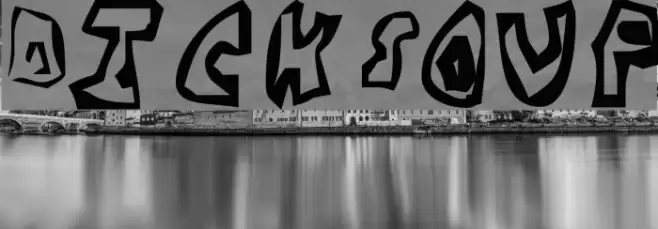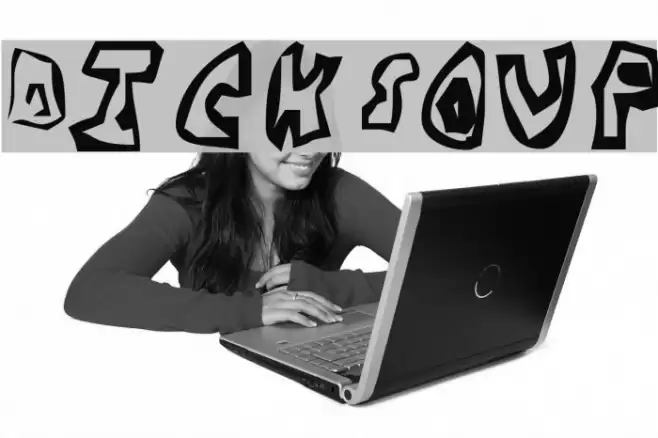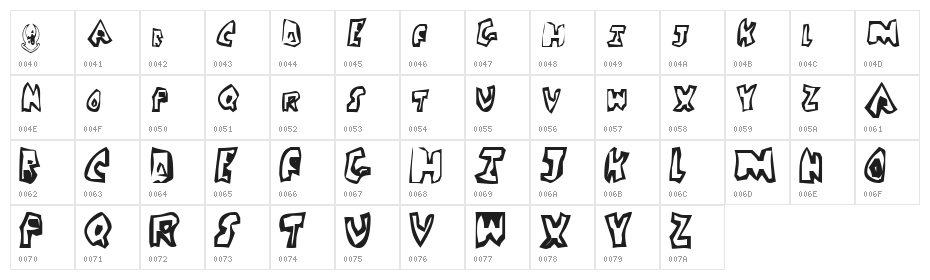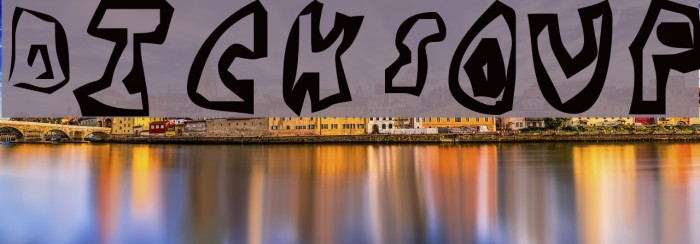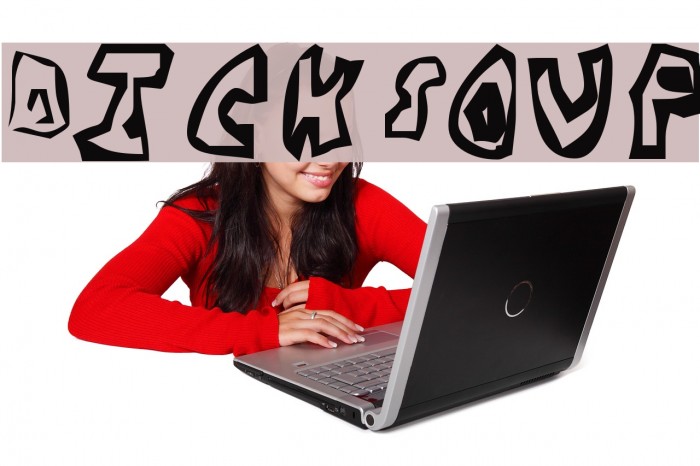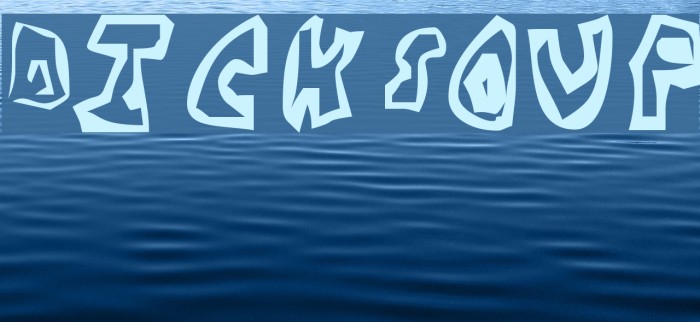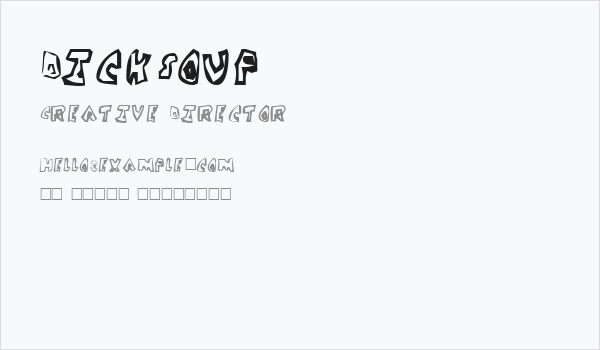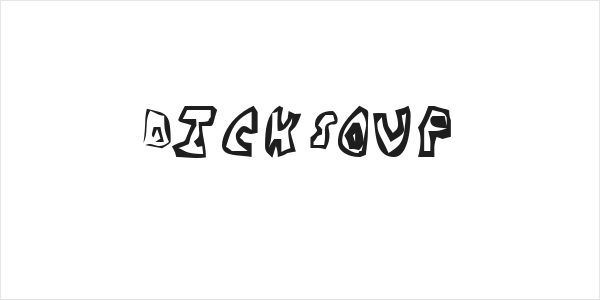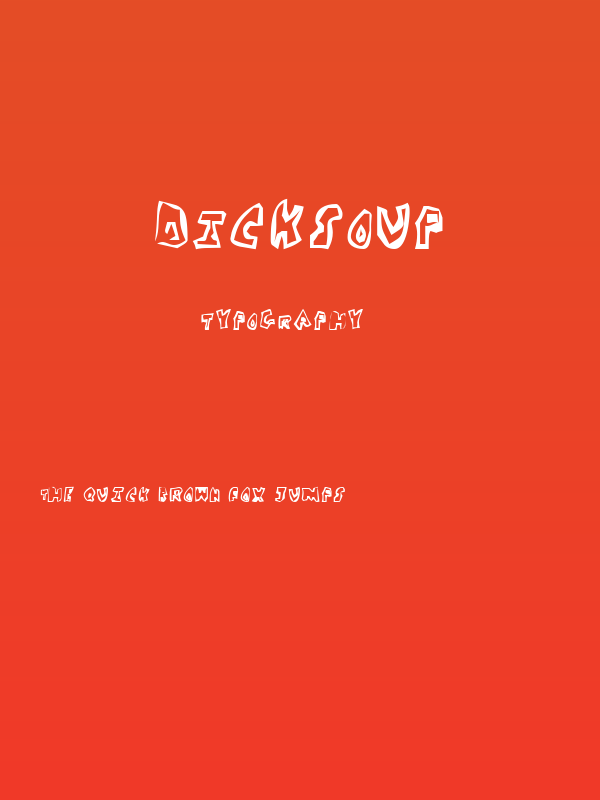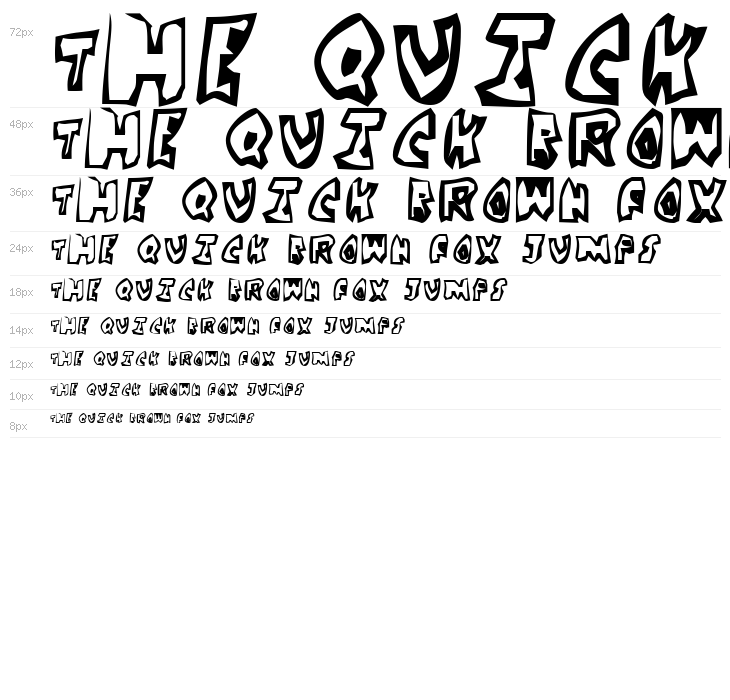
DickSoup Font
DickSoup Description
This font features a bold, playful style with a three-dimensional effect, giving each character a shadowed appearance. The letters are irregular and quirky, with exaggerated angles and curves that create a dynamic and energetic look. The uppercase and lowercase letters maintain a consistent style, while the numbers and special characters follow the same playful design. The font's unique aesthetic makes it stand out, ideal for projects that require a fun and eye-catching typeface.
A bold, playful font with a three-dimensional, shadowed effect from Uncategorized fonts.
- Proposed Projects: Ideal for comic books, children's books, playful branding, posters, and creative advertisements.
- Overall Style: Playful, Energetic, Quirky